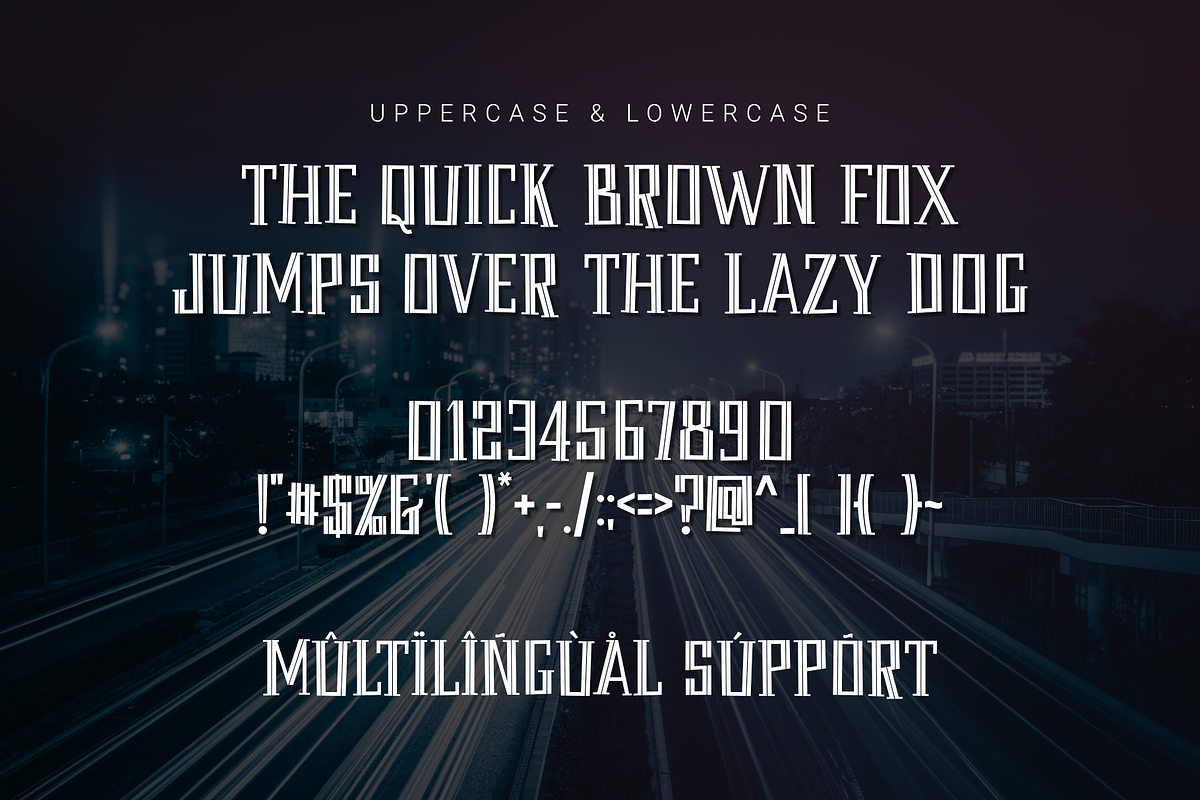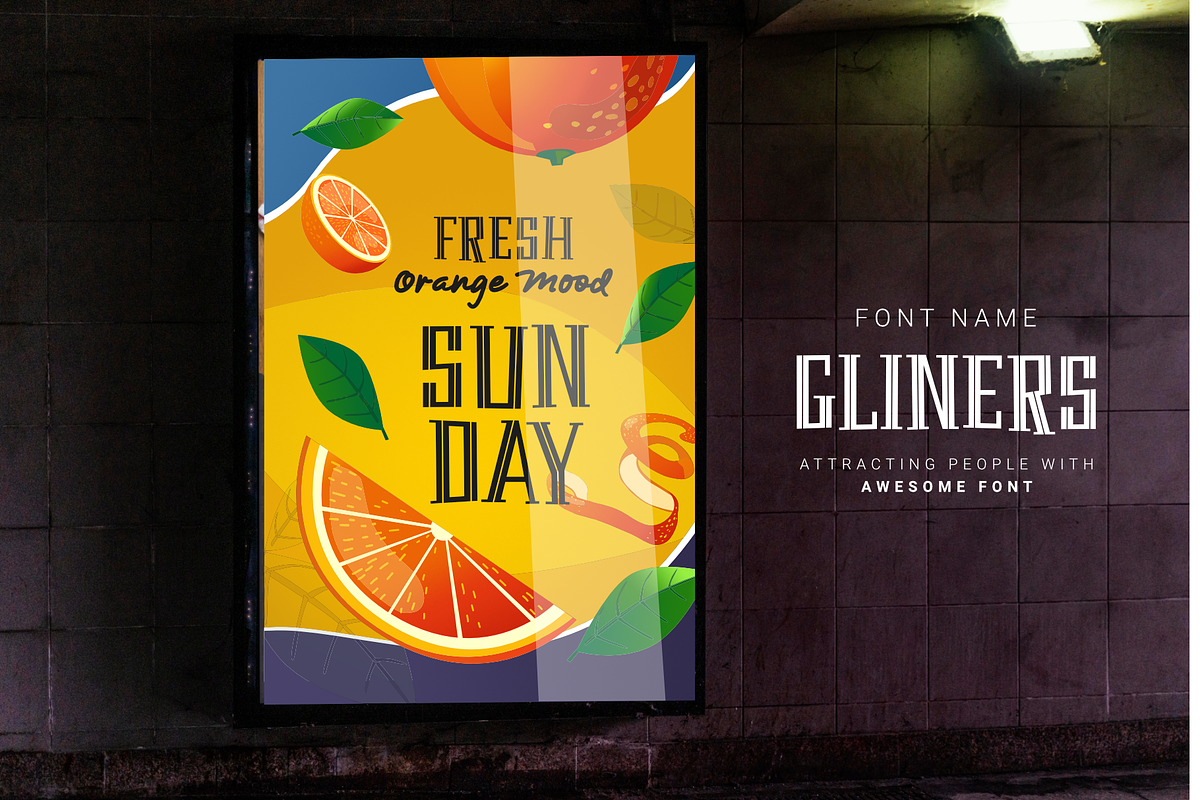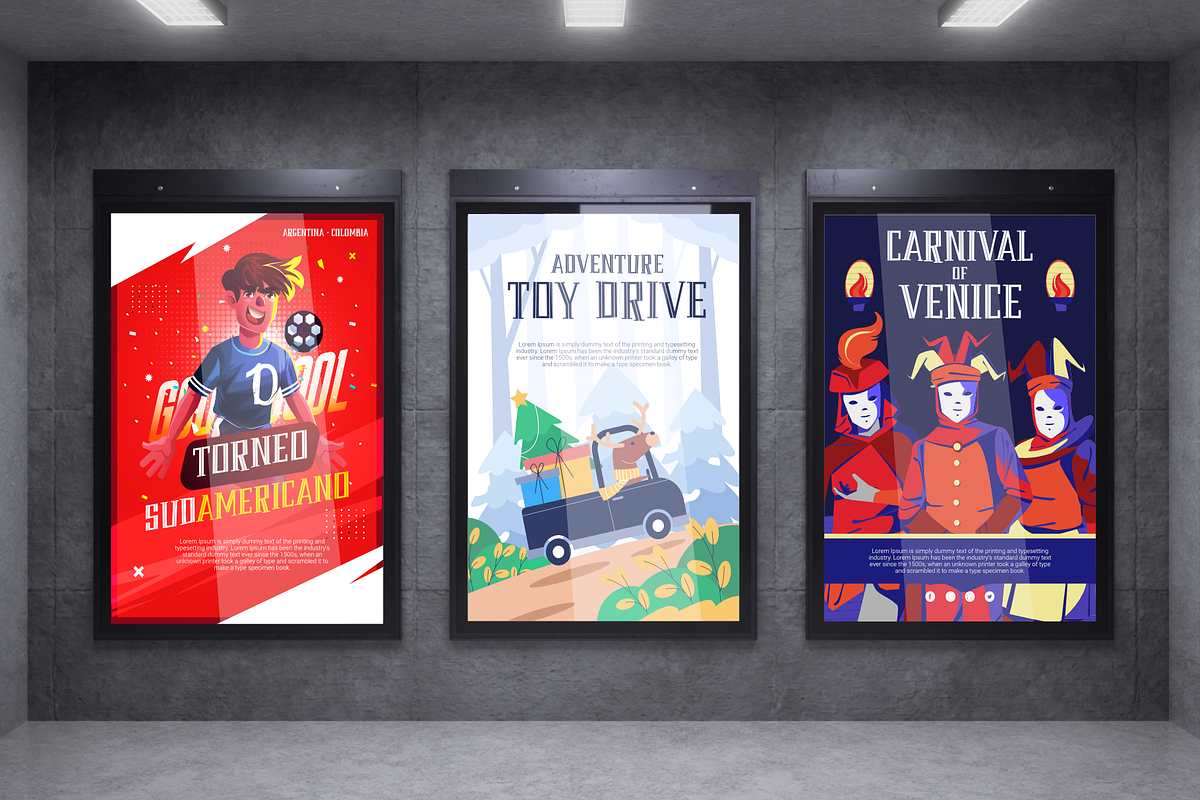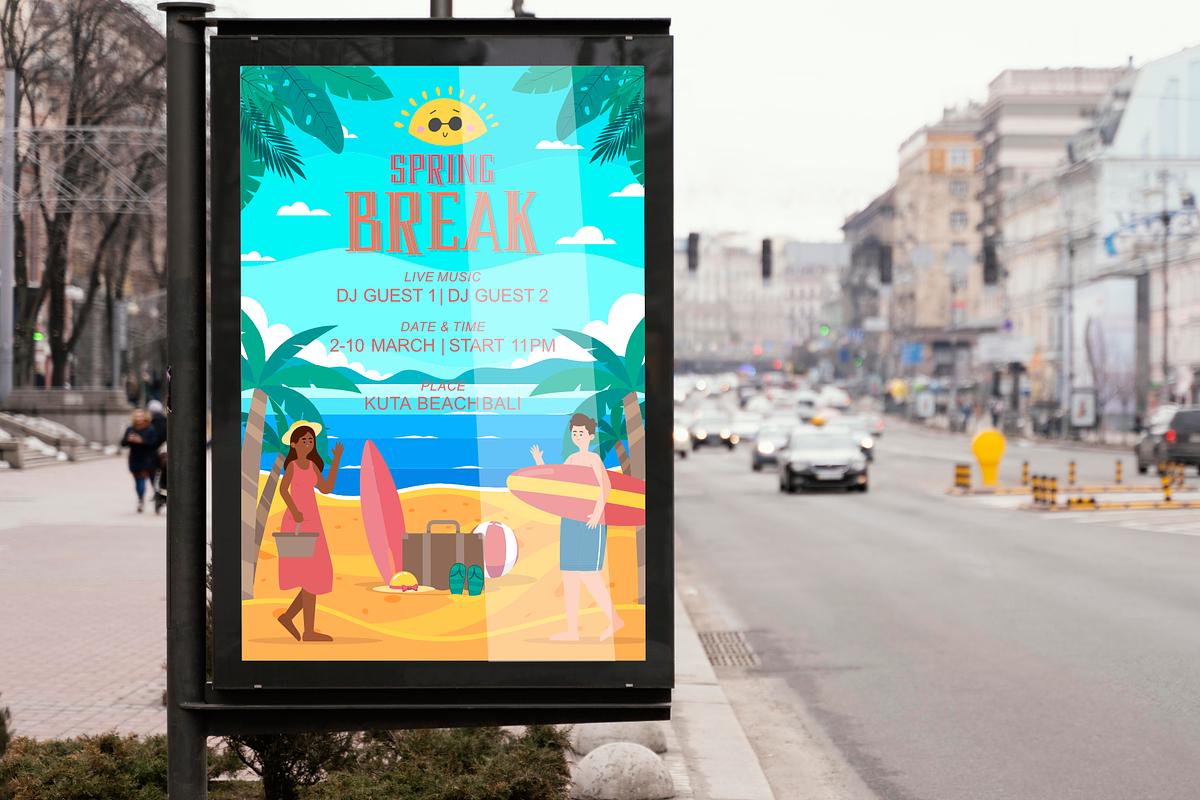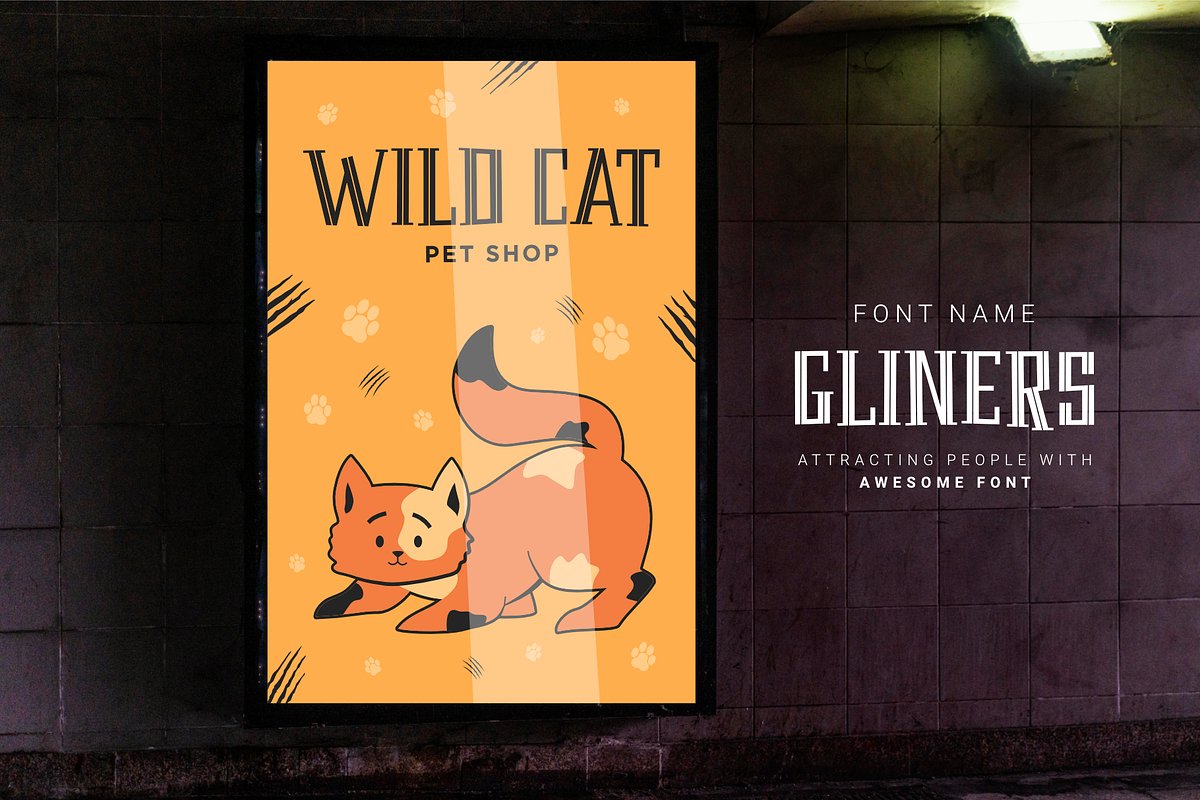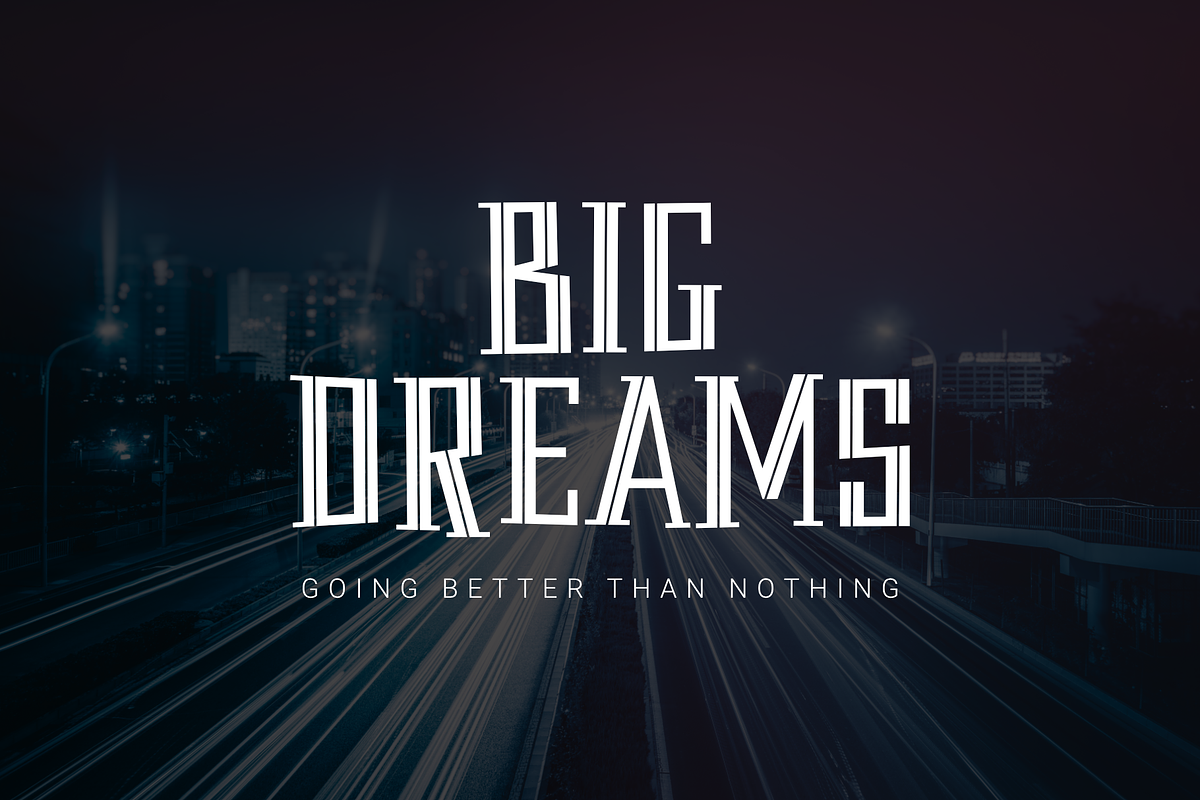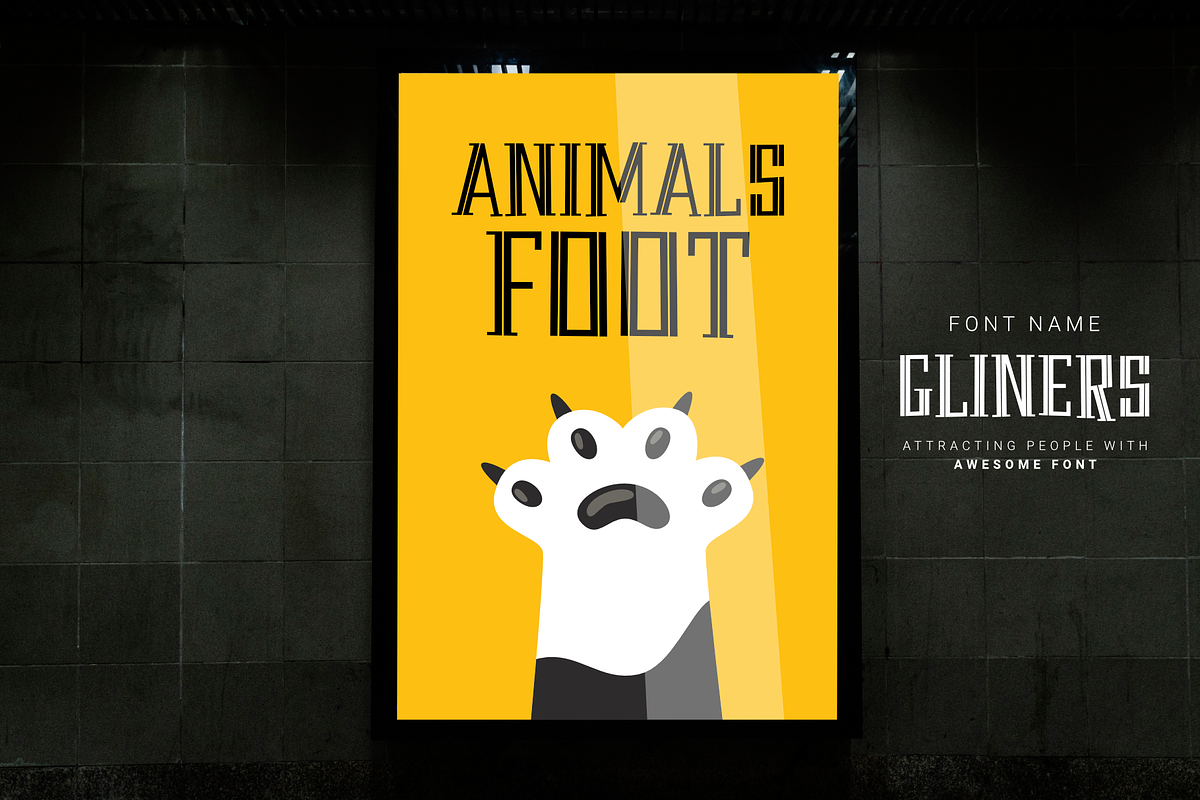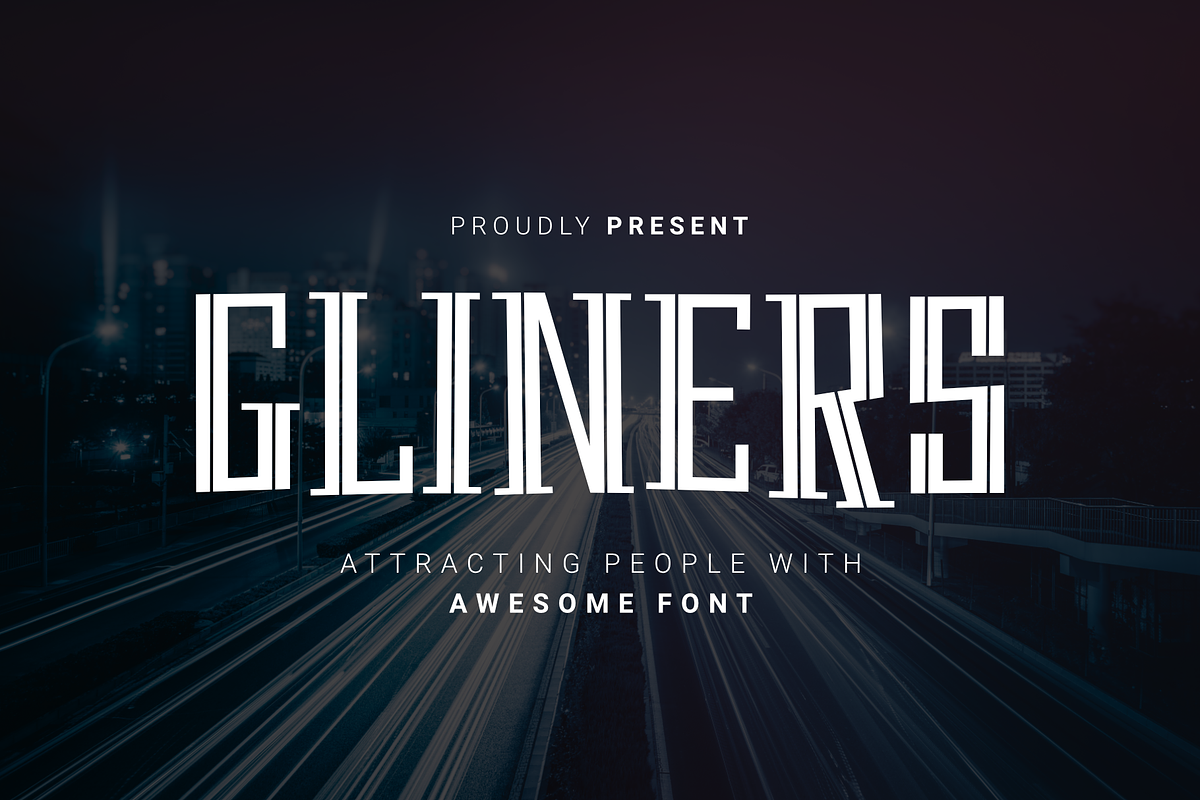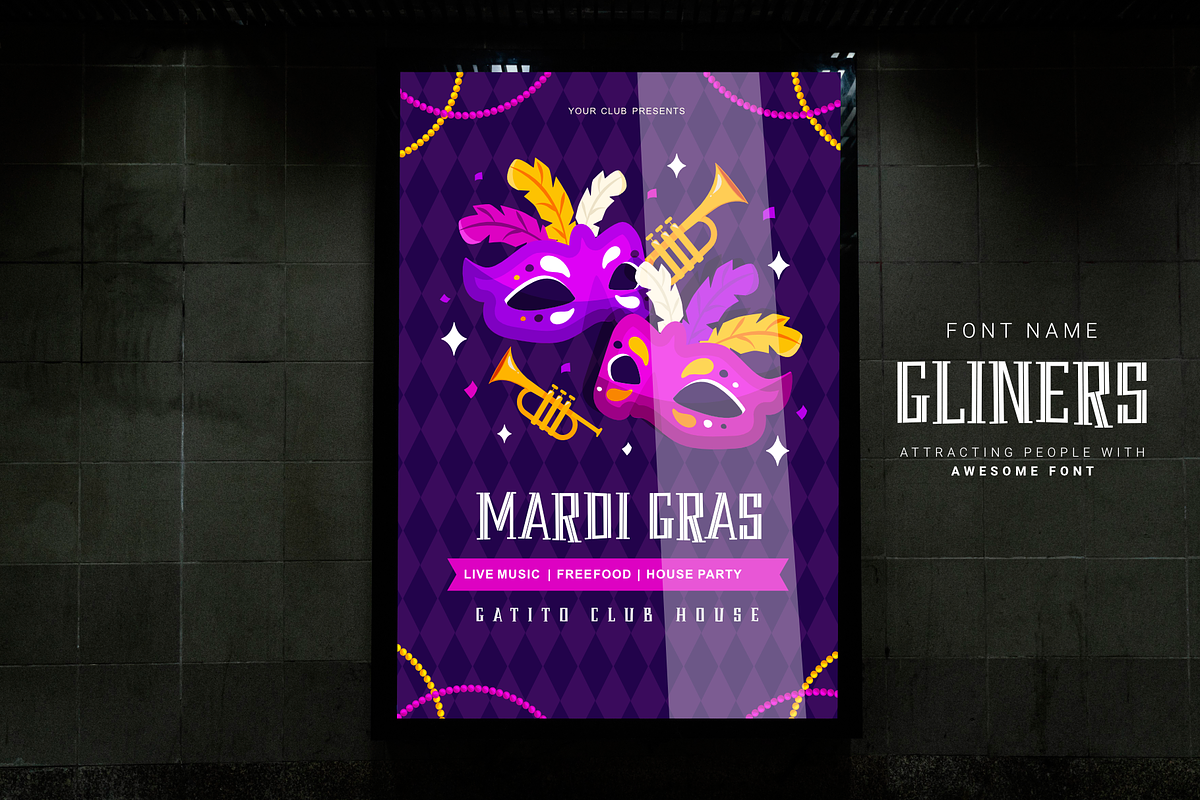
Gliners
Gliners is a simple stylized font that overlies the center of the glyphs bar in the font. Glyphs font doesn't have too many, it only offers Uppercase and Multilingual, but don't worry because its simple shape will make your project look interesting.
The Gliners font is very suitable for use as movie titles, movie title poster covers like the review image I shared above.
- Uppercase Only
- Multilingual Accent